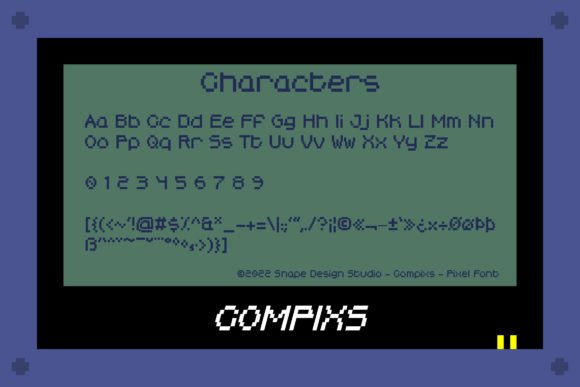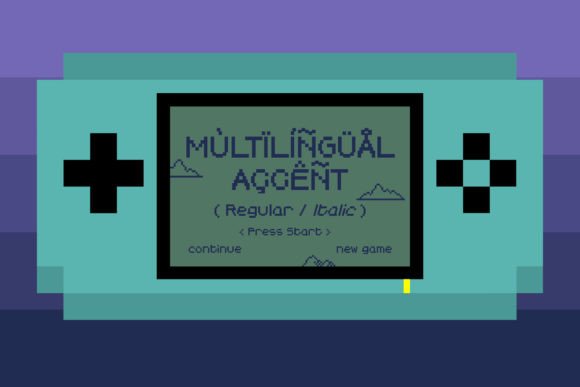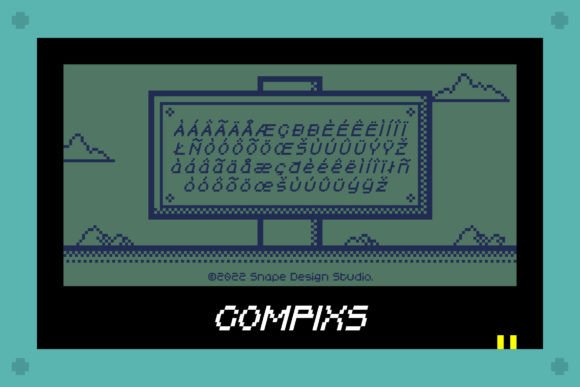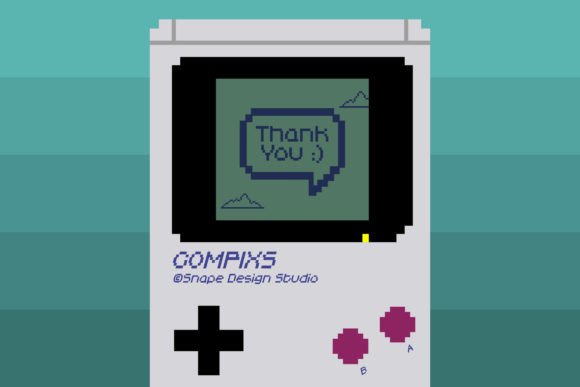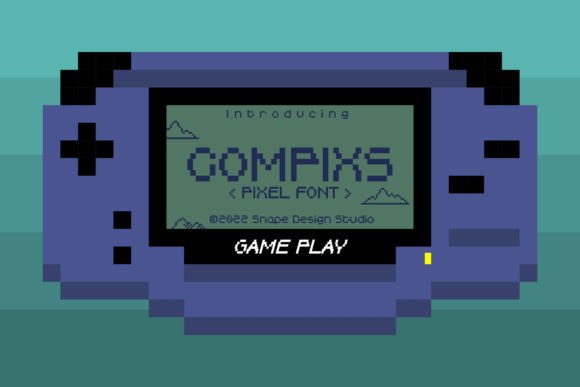
Introducing Compixs Font: The Ultimate Retro Pixel Font for Design Enthusiasts
Are you a designer, gamer, or crafty enthusiast looking for a font that can add a touch of nostalgia and retro flair to your creative projects? Look no further than Compixs Font, a stylish and versatile display typeface that’s perfect for retro game design themes, movies, documentaries, films, logos, posters, book covers, headlines, and more.
What is Compixs Font?
Compixs Font is a carefully crafted retro pixel font that embodies the spirit of classic video games and pixel art. Its unique design features chunky pixels and a distinctive aesthetic that’s reminiscent of old-school gaming consoles and 8-bit graphics. With Compixs, you can add a dash of retro charm to your designs and make them stand out from the crowd.
Key Features of Compixs Font
- Retro Pixel Style: Compixs Font boasts a genuine retro pixel look that’s perfect for creating nostalgic designs that appeal to gamers and non-gamers alike.
- Display Typeface: This font is specifically designed for display purposes, making it ideal for headlines, titles, logos, and other attention-grabbing elements.
- Versatile: Compixs Font can be used across various mediums, including digital platforms, print materials, and even merchandise.
- Easy to Read: Despite its pixelated nature, Compixs Font remains surprisingly legible, making it suitable for use in a wide range of applications.
Use Cases for Compixs Font
Compixs Font is an incredibly versatile typeface that can be used in various contexts. Here are some ideas to get you started:
- Retro Game Design: Create pixel art characters, logos, and UI elements that evoke the spirit of classic video games.
- Movies and Documentaries: Use Compixs Font to add a touch of nostalgia to your film or documentary titles, subtitles, and credits.
- Logos and Branding: Craft memorable logos and brand identities that incorporate the retro pixel aesthetic.
- Posters and Flyers: Design eye-catching posters and flyers that showcase your creative work, events, or promotions.
- Book Covers: Add a dash of pixelated flair to your book covers, especially for science fiction, fantasy, and gaming-related titles.
Tips for Using Compixs Font
To get the most out of Compixs Font, keep the following tips in mind:
- Experiment with Sizes: Compixs Font looks great in various sizes, from small headlines to large display titles.
- Combine with Other Fonts: Pair Compixs Font with complementary fonts to create visually appealing contrast and hierarchy.
- Play with Colors: Take advantage of Compixs’ pixelated design by using bold, bright colors that match your brand or design theme.
Compixs Font is an exceptional retro pixel font that’s sure to elevate your designs and add a touch of nostalgia to your creative projects. Whether you’re a designer, gamer, or crafty enthusiast, this versatile typeface is perfect for a wide range of applications. So why wait? Add Compixs Font to your creative arsenal and watch your designs come to life!